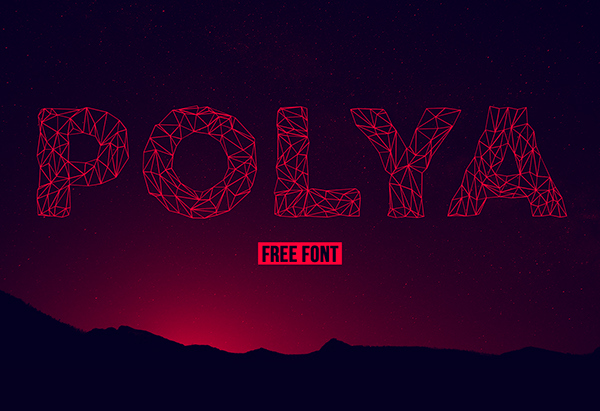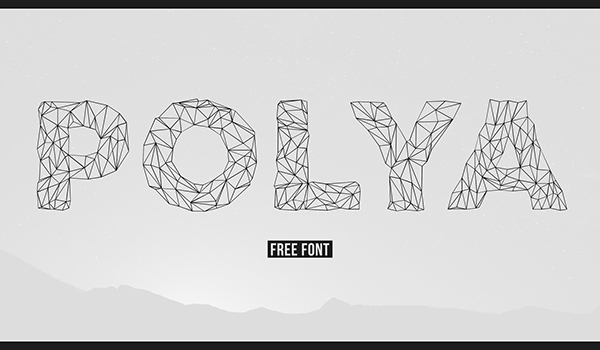
POLYA /// Free Font
POLYA is a unique display font, completely new, and highly artistic. POLYA Typeface was designed and shared by Adrien Coquet. Polya is a free font inspired by low-poly shapes. POLYA you will have more choices in the design of their projects, there are also shaped in Befonts you seek more